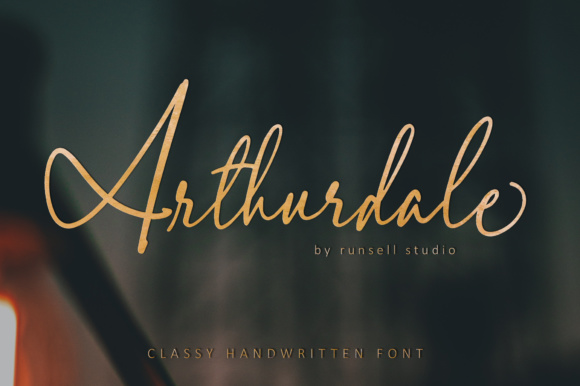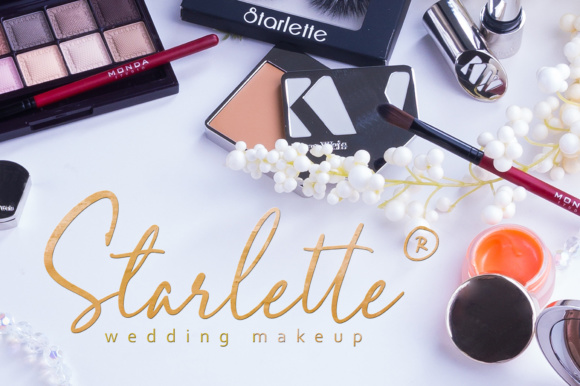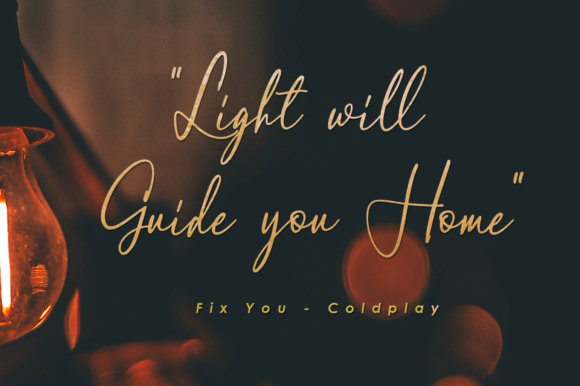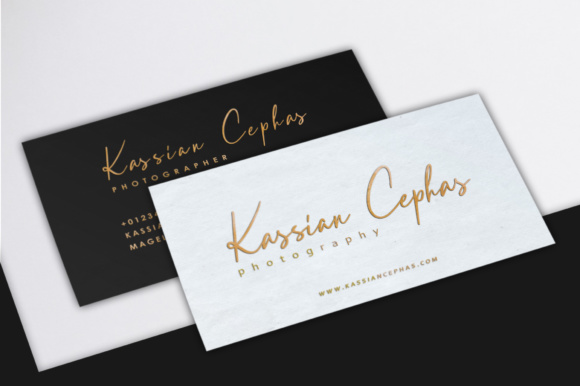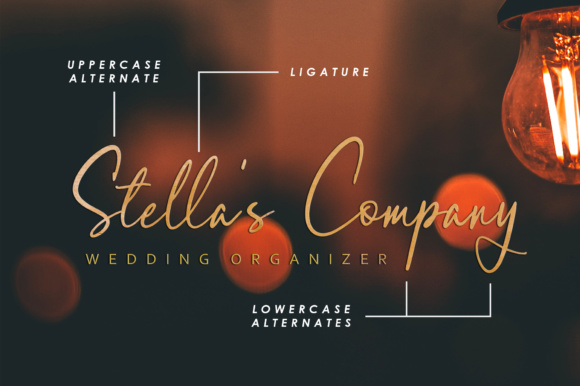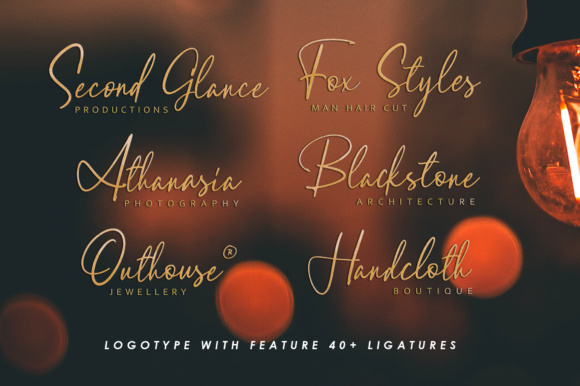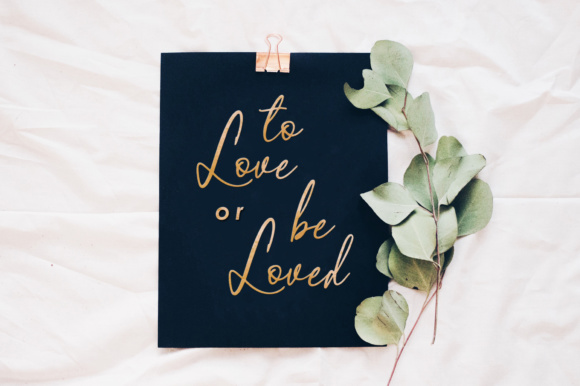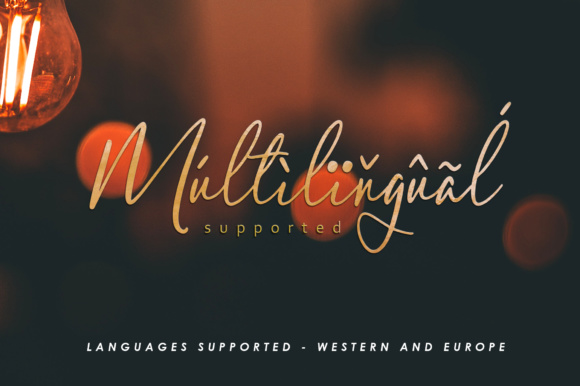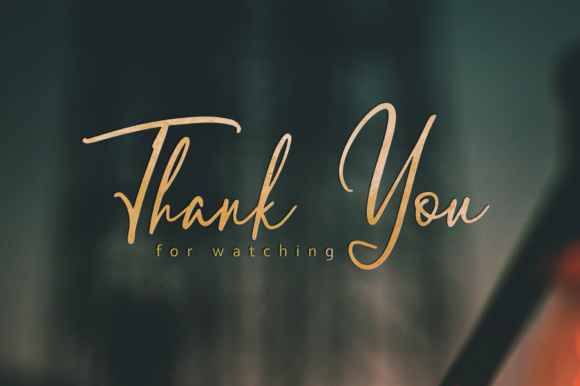
Arthurdale Font
About Arthurdale Font
Arthurdale is an elegant script font, made to give your work a luxuriant appeal. This handwritten signature style font has a bit of a calligraphic nuance to it, and it works well in print works and headlines.